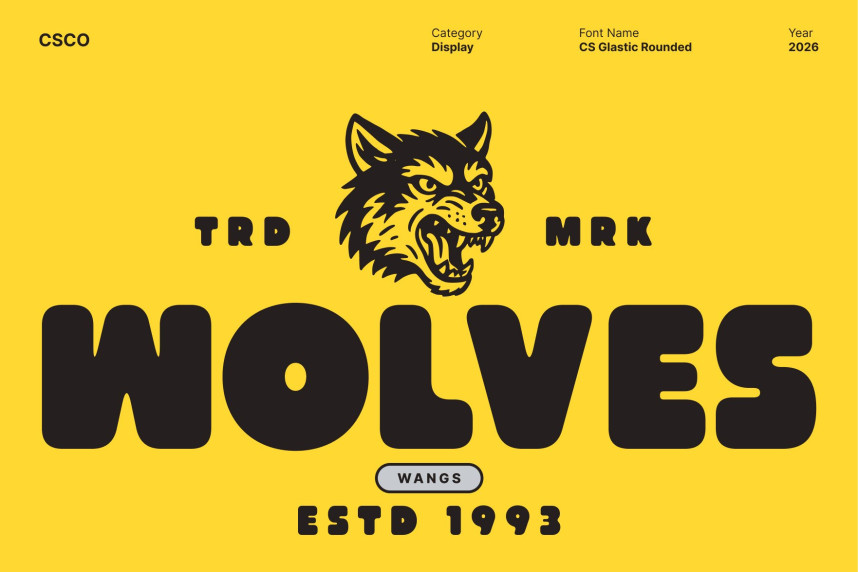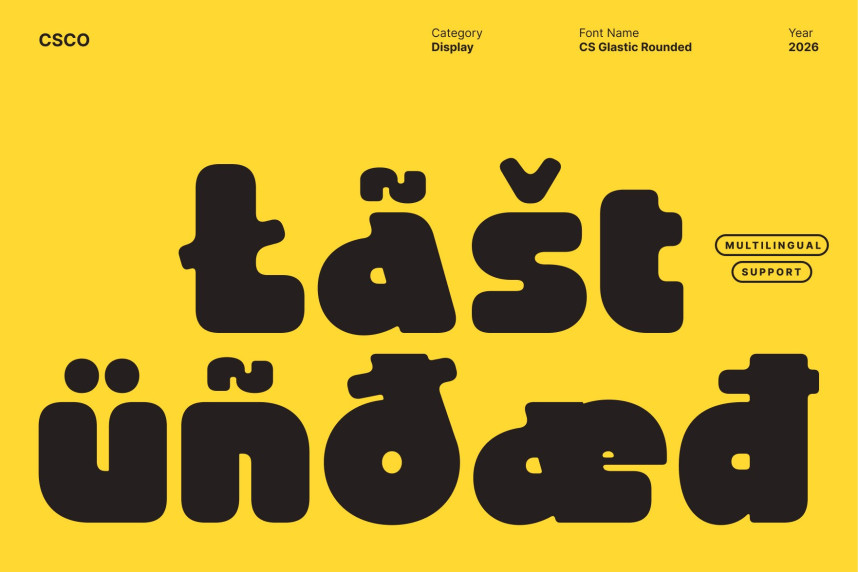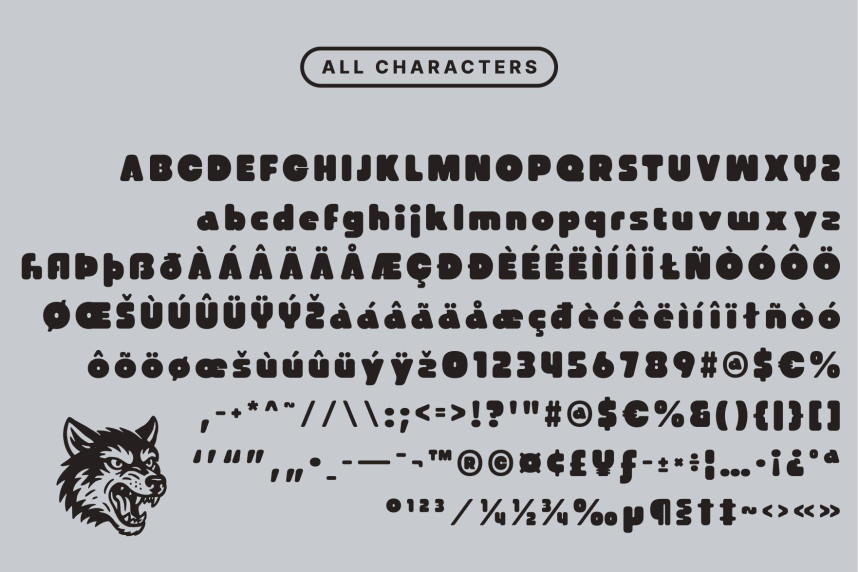
CS Glastic Rounded Font
CS Glastic Rounded Font – Bold Geometry with Funky Modern Energy Bold Geometric Impact. This is a modern sans serif display font built to deliver strong visual impact through confident, geometric construction. Its bold weight and solid proportions create an immediate presence that feels modern, expressive, and full of energy.